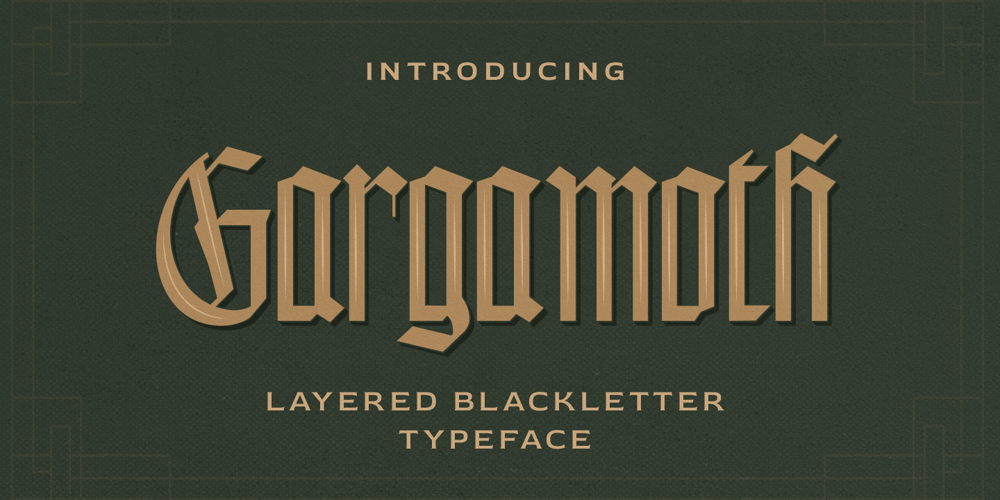
Gargamoth
Gargamoth font
Gargamoth Font Family was designed by Hendry Juanda and published by Letterhend. Gargamoth contains 4 styles and family package options. Introducing, Gargamoth – A modern blackletter typeface. This type of font perfectly made to be applied especially in logo, and the other various formal forms such as Logo, Clothing, Fashion, Headline, or any type of advertising purpose.Features :uppercase & lowercaselayered fontsnumbers and punctuationstylistic alternatemultilingualPUA encodedWe highly recommend using a program that supports OpenType features and Glyphs panels like many of Adobe apps and Corel Draw, so you can see and access all Glyph variations.